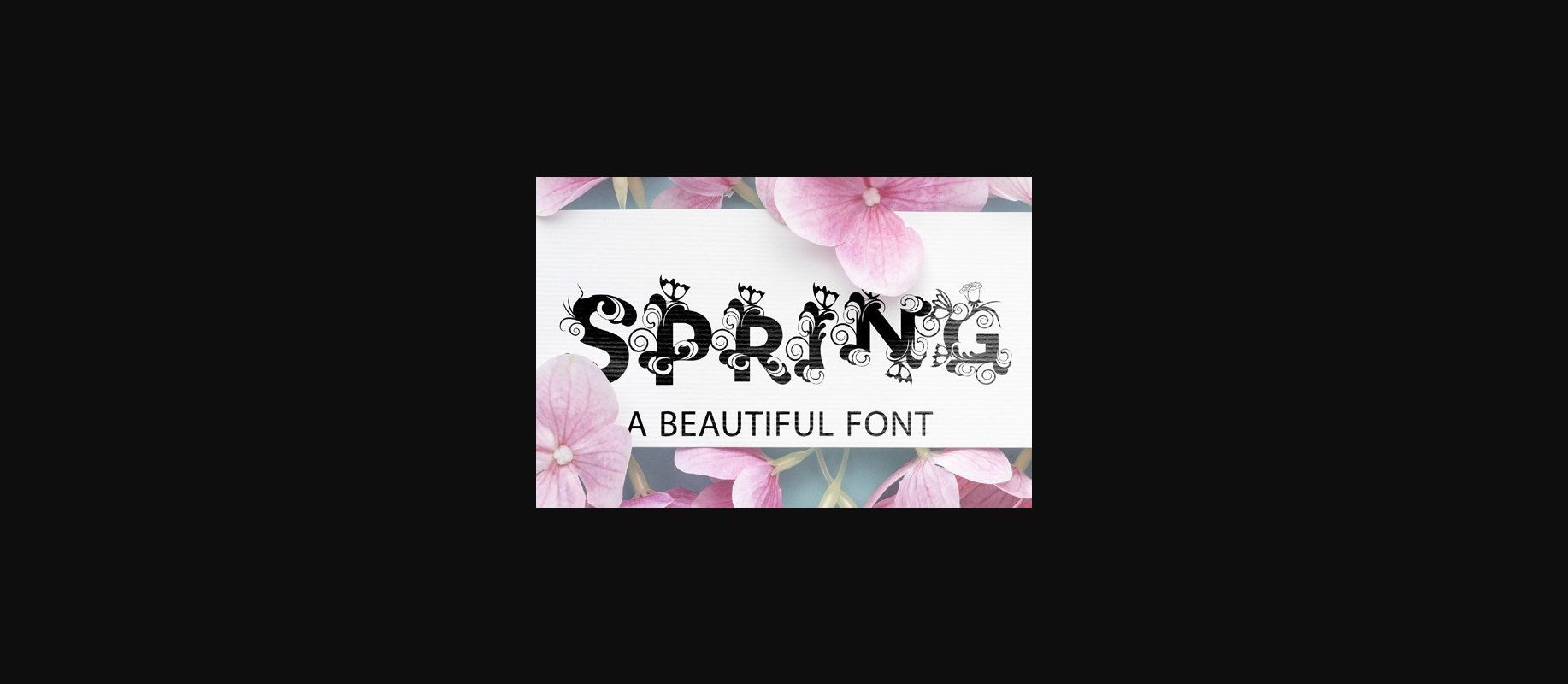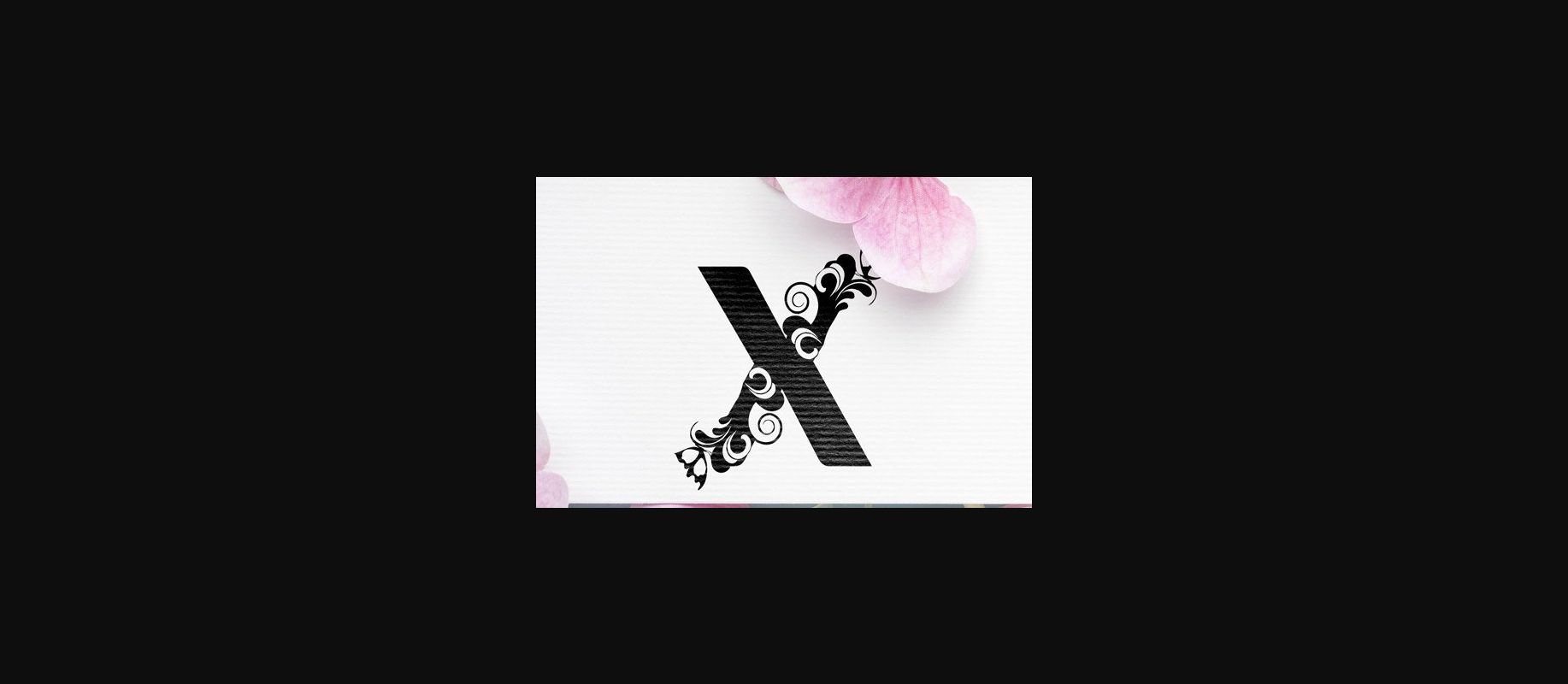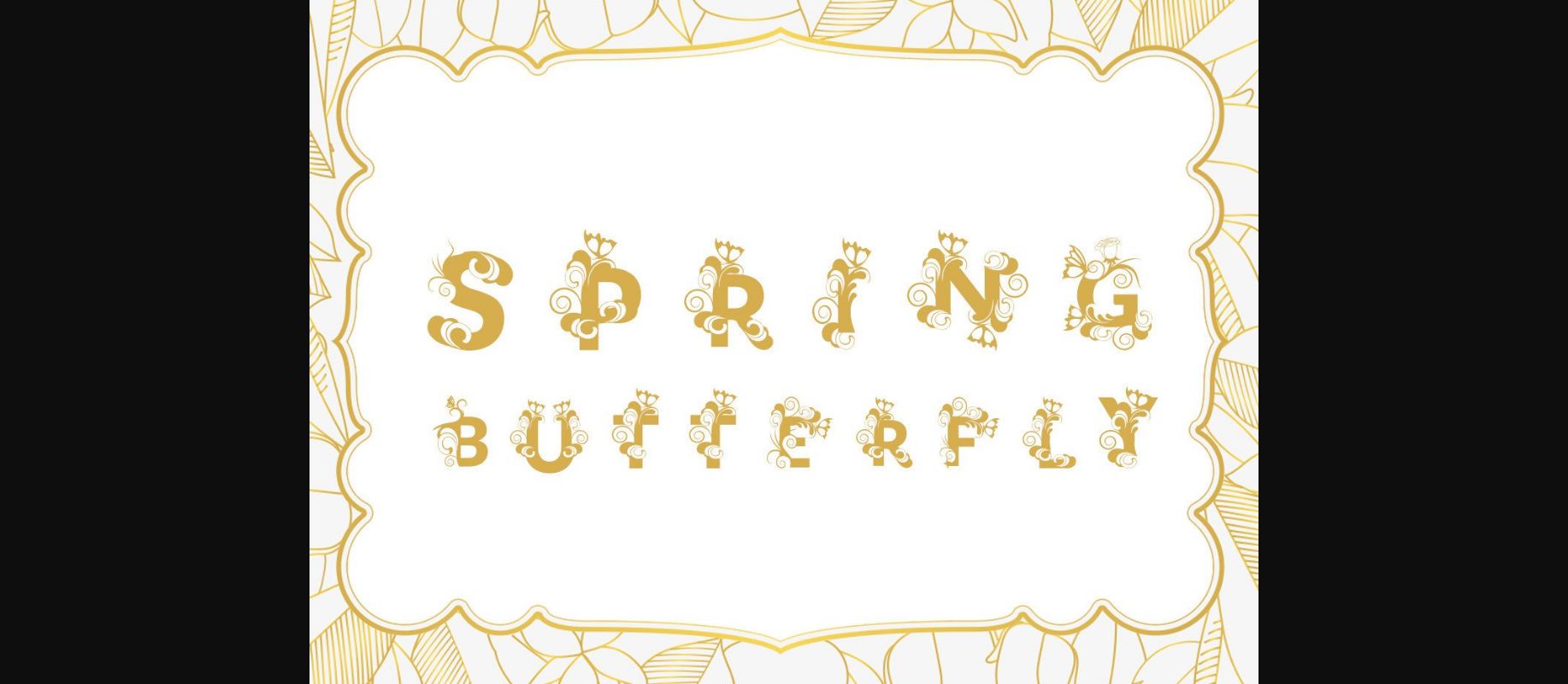
Spring Font
About Spring Font
Spring is an elegant decorative font with lovely ornaments. Create stunning wedding invitations, beautiful stationary art, eye-catching social media posts, and cute greeting cards using its authentic feel.